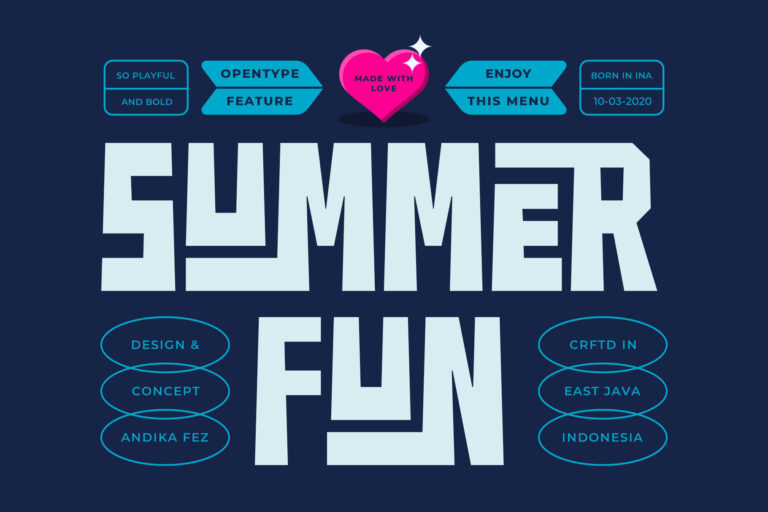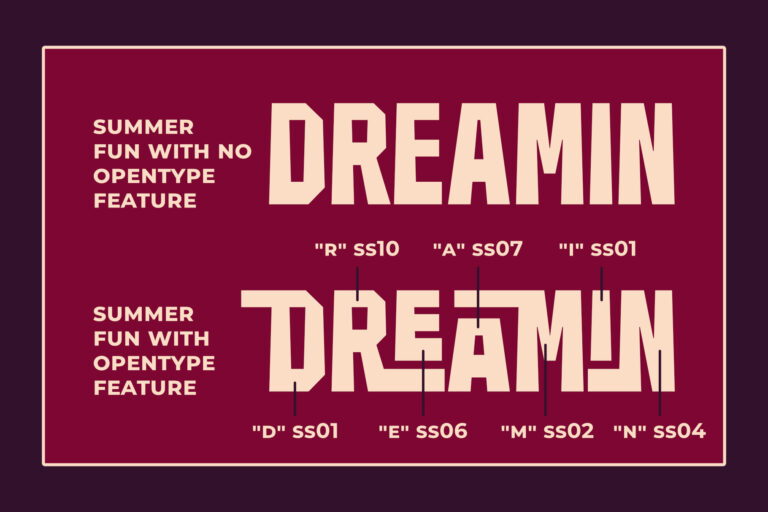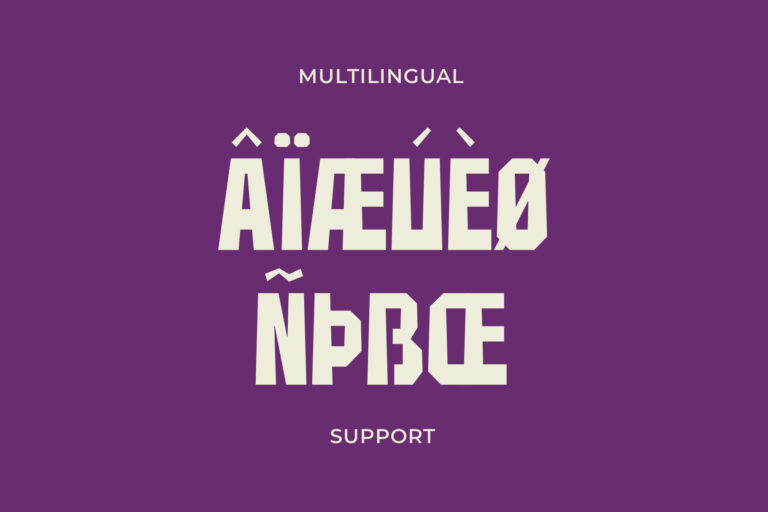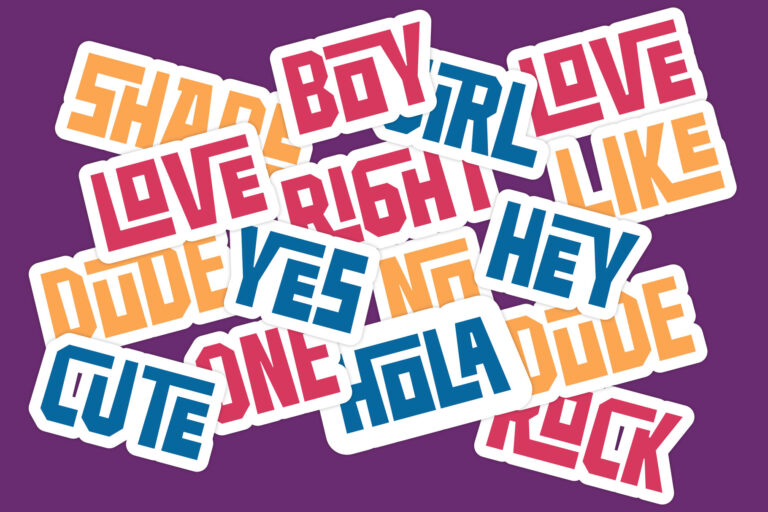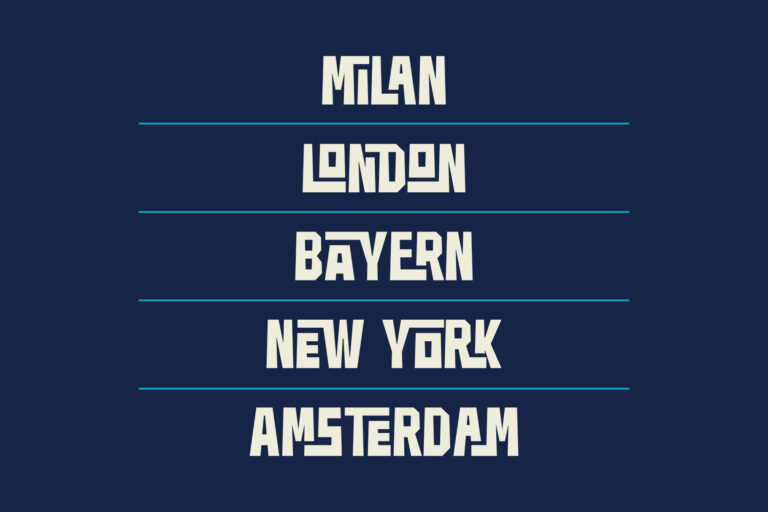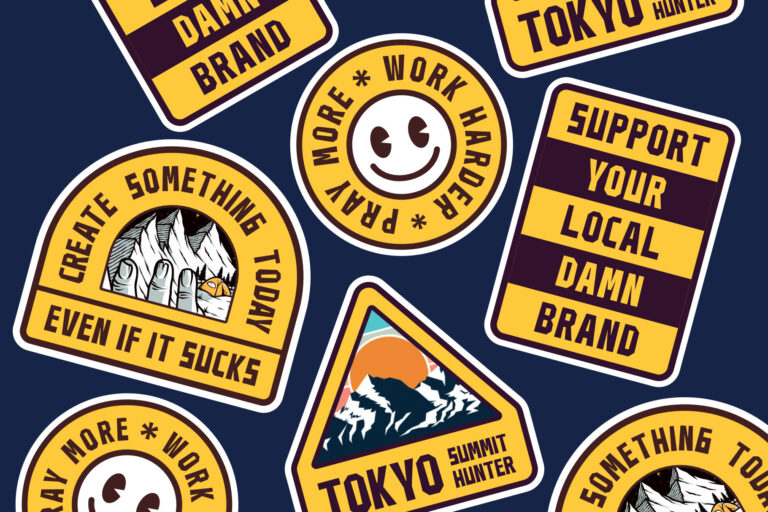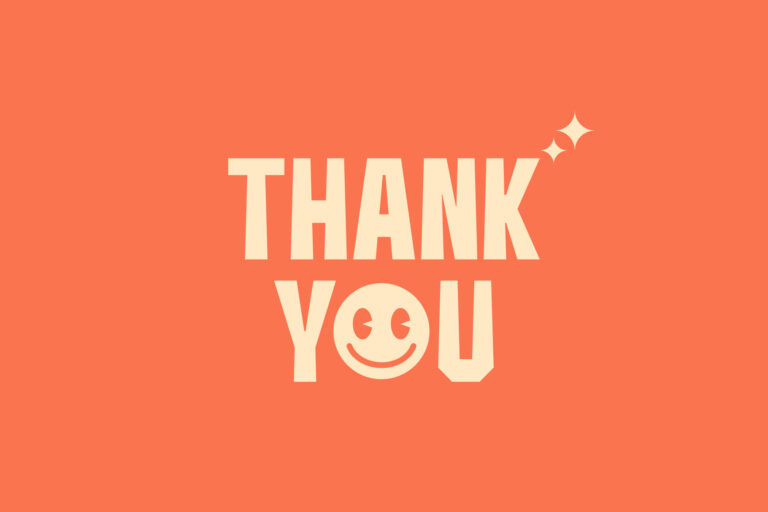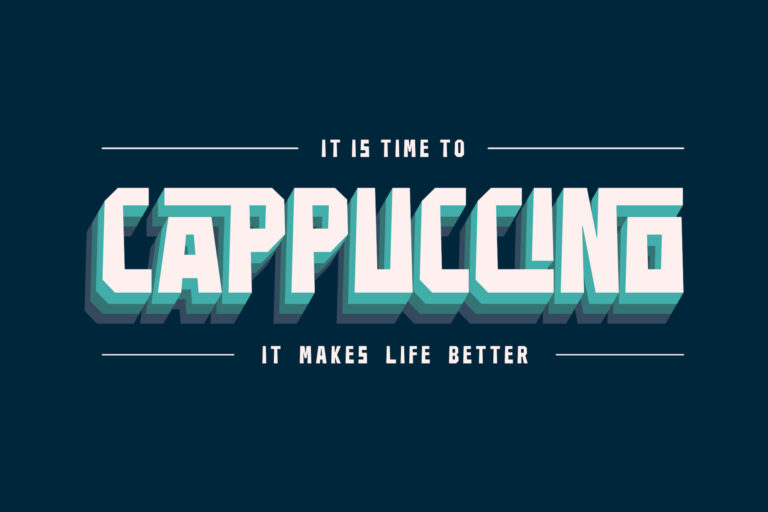
SUMMMER FUN
This is SUMMER FUN! a unique retro font that brings 70’s vibe.
This retro font also provides the opentype feature that allows you to create your own typography game.